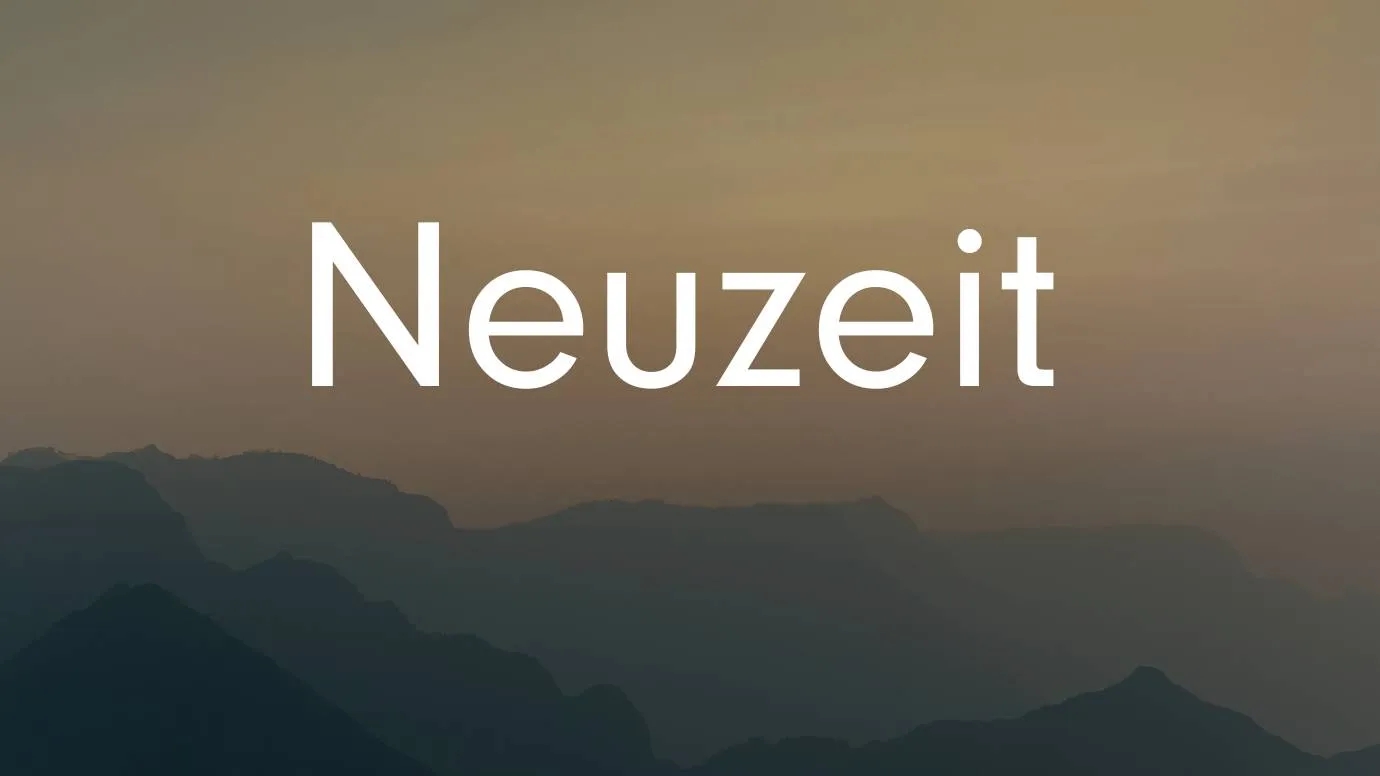
Neuzeit Font Family is a geometric sans serif typeface family. A German type designer Wilhelm Pischner take charge in 1928 of this gorgeous typeface. The design was intended to be timeless without any great characteristics.
Neuzeit Font
DesignerWhilhelm Pischner
StyleSans serif
Date Released1928